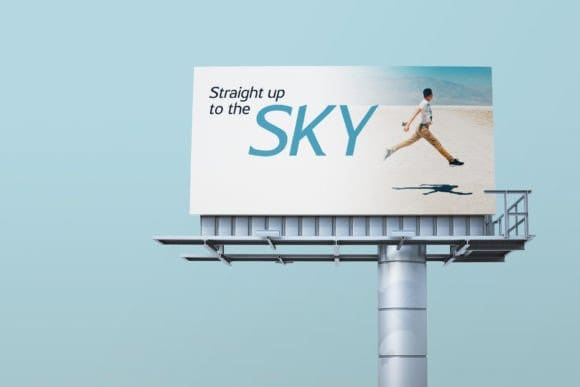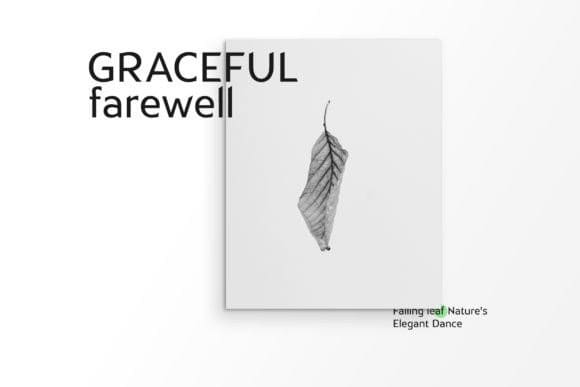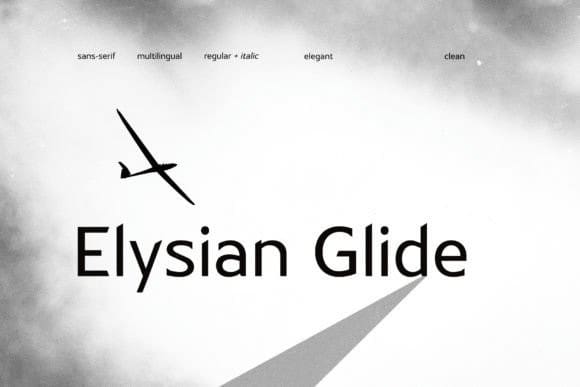
Elysian Glide Font
Elysian Glide Font, an elegant sans-serif font designed for versatility and impact. Its refined aesthetics and functional design make it ideal for both headlines and body text, showcasing its clear and distinctive structure. Grabbing attention and adding a touch of sophistication, Elysian Glide easily elevates any project with its timeless elegance and sharp yet sophisticated appearance. It is the perfect choice for logos, marketing materials, advertising campaigns, branding and packaging design.